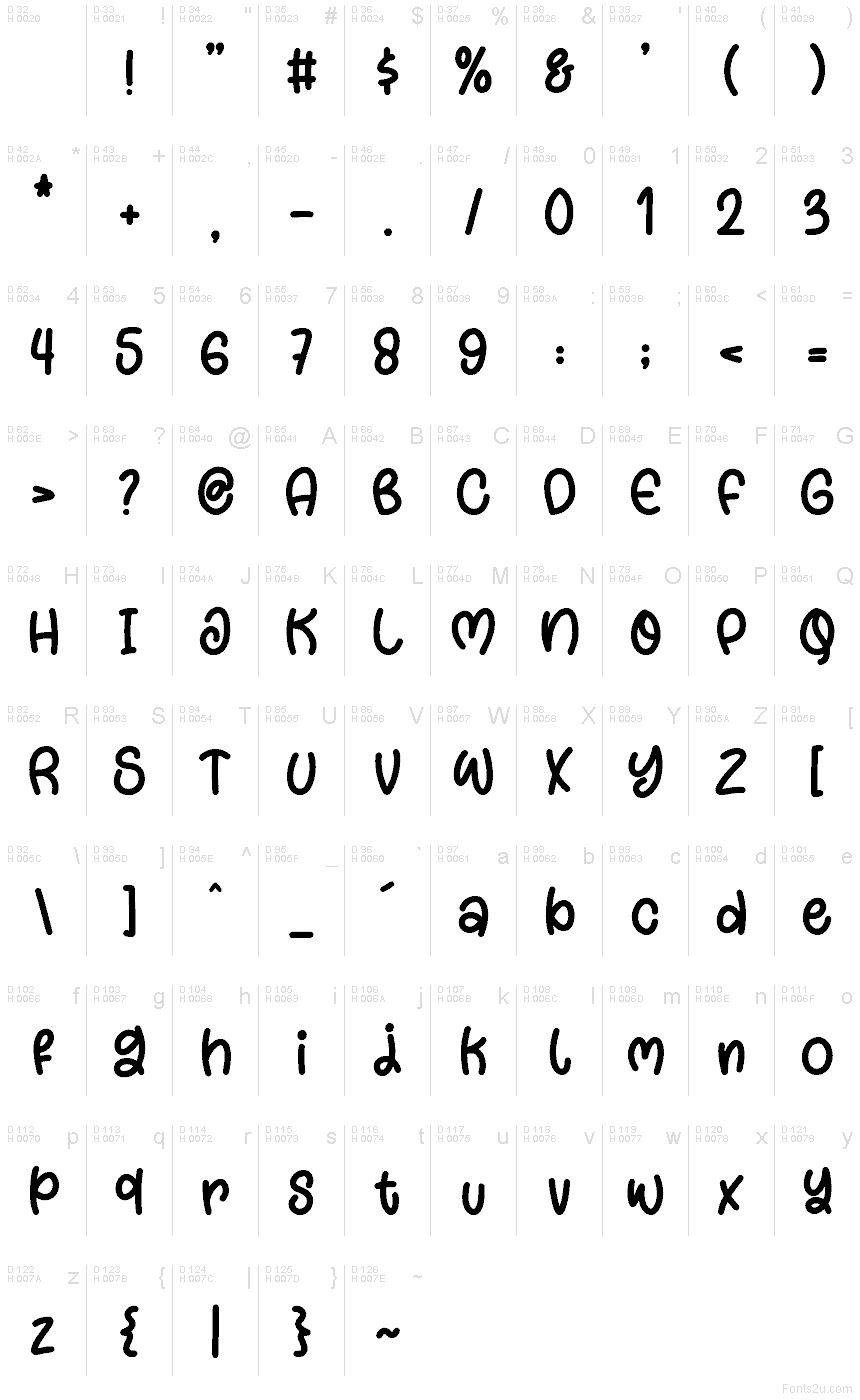
Winter Feast
Winter Feast font by Dm Letter Studio - Dimas Prasetyo is a free handwritten display font. It brings a cozy, candy-coated energy—rounded terminals, steady strokes, and a gentle bounce that feels like letters piped with frosting. The spacing is generous and the rhythm is friendly, so words read clearly even when the layout gets busy, while the pillowy curves add instant warmth without slipping into messiness.
Using Winter Feast, seasonal projects shine: holiday cards, bakery packaging, kids’ book covers, café menus, product labels, and cheerful social posts. This free font’s soft, bubbly forms create approachable headlines and snug subheads that welcome readers in. For balance, pair it with a light, clean sans serif and let Winter Feast handle the big, smiley display lines at larger sizes.